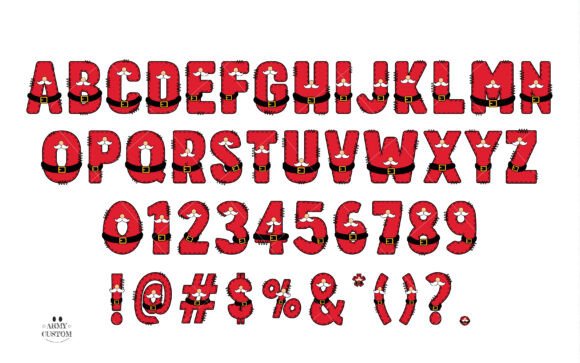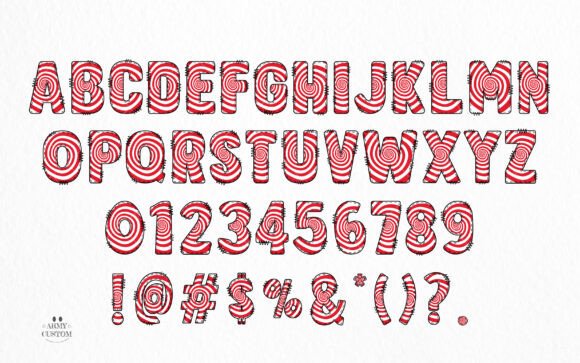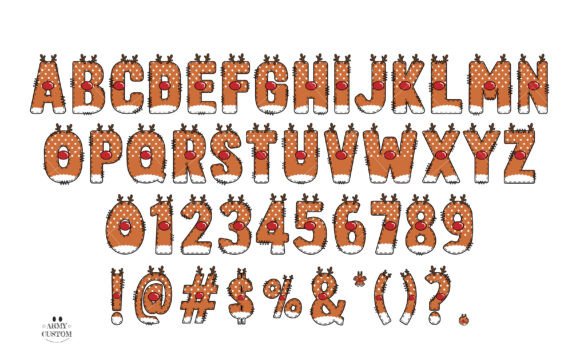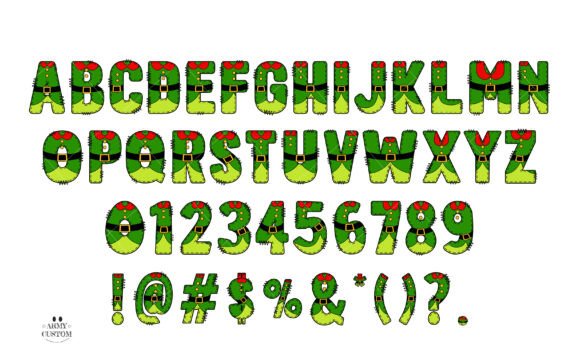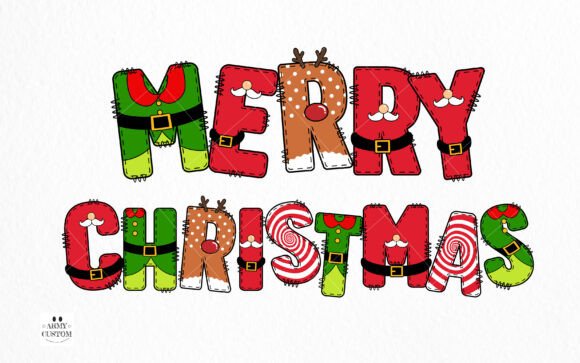
Introducing the Christmas Army Bundle Font: A Whimsical Addition to Your Holiday Design Toolkit
The holiday season is upon us, and with it comes the desire to create festive and fun designs that capture the spirit of Christmas. Whether you’re a designer, crafter, or DIY enthusiast, having the right tools and resources can make all the difference in bringing your ideas to life. That’s where the Christmas Army Bundle Font comes in – a delightful and playful font that’s sure to elevate your holiday projects and add a dash of merriment to your designs.
A Font Inspired by the Whimsy of the Holiday Season
The Christmas Army Bundle Font is imbued with a sense of whimsy and fun, making it the perfect addition to your holiday design toolkit. Its jovial style is reminiscent of the adorable antics of Santa’s helpers, and every letter spelled out becomes a joyous celebration. This charming, elfish font is sure to bring a smile to your face and inspire your creativity.
Perfect for Holiday Decorations and Design Projects
Whether you’re creating vibrant holiday decorations, designing festive greeting cards, or working on a fun DIY project, the Christmas Army Bundle Font is an ideal choice. Its playful and whimsical style makes it perfect for adding a touch of holiday cheer to any design project. From crafting personalized gift tags to designing festive window decals, this font is sure to become a staple in your holiday design arsenal.
Tips and Tricks for Using the Christmas Army Bundle Font
The Christmas Army Bundle Font is a fun and playful addition to any holiday design toolkit. Its whimsical style and compatibility with a range of design programs and cutting machines make it the perfect choice for designers, crafters, and DIY enthusiasts. Whether you’re creating festive holiday decorations, designing personalized gifts, or working on a fun DIY project, this font is sure to bring a dash of merriment and joy to your designs. So why wait? Indulge in the spirit of the holiday season and download the Christmas Army Bundle Font today!